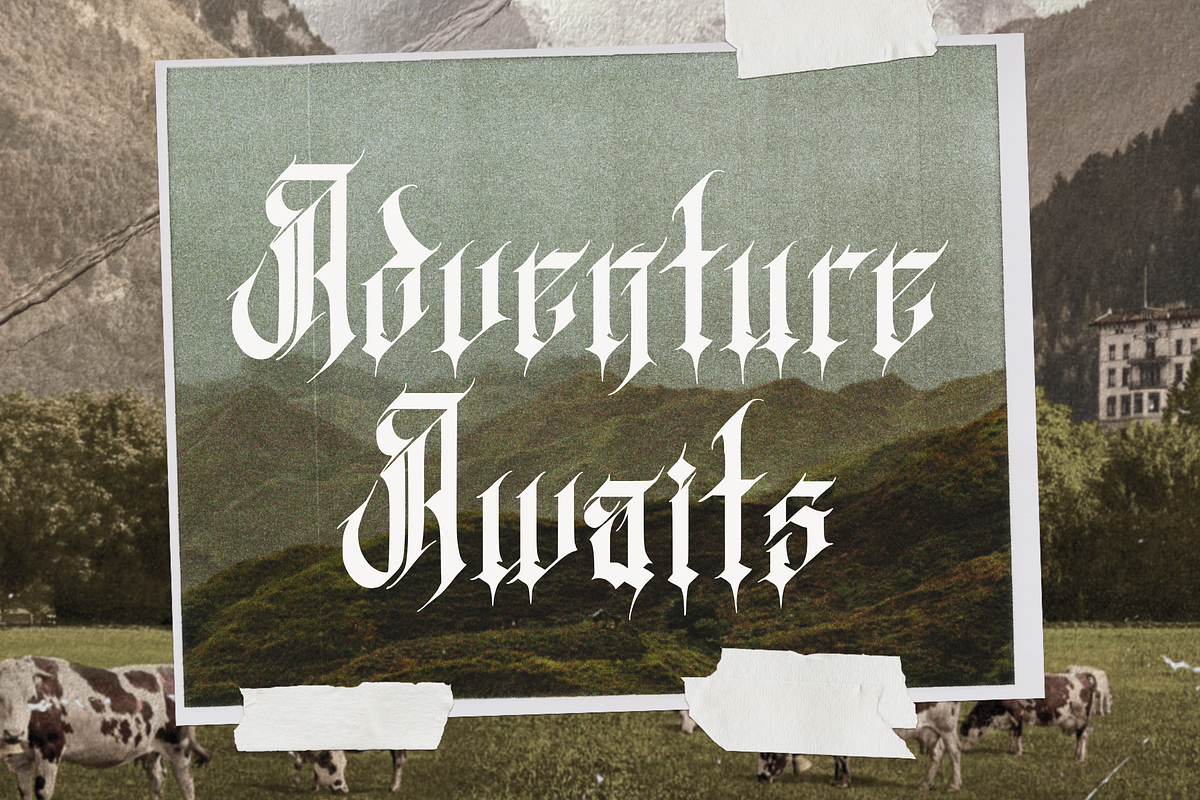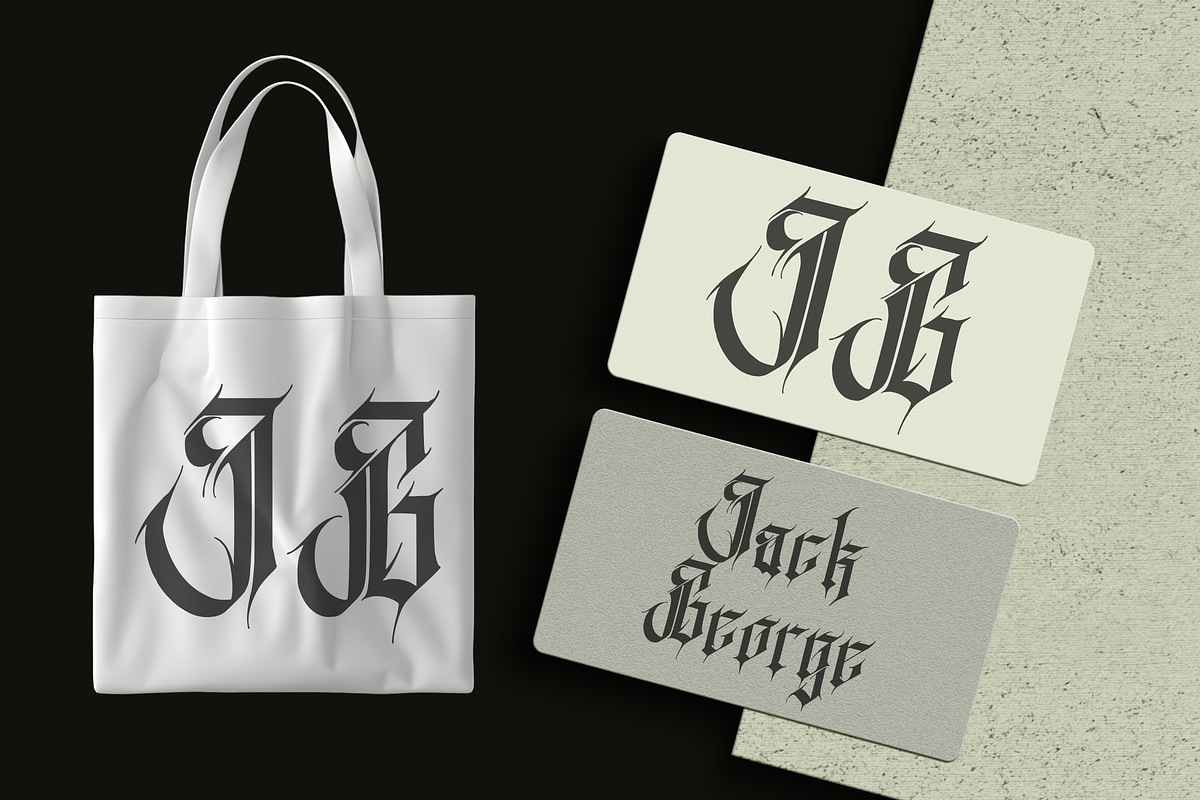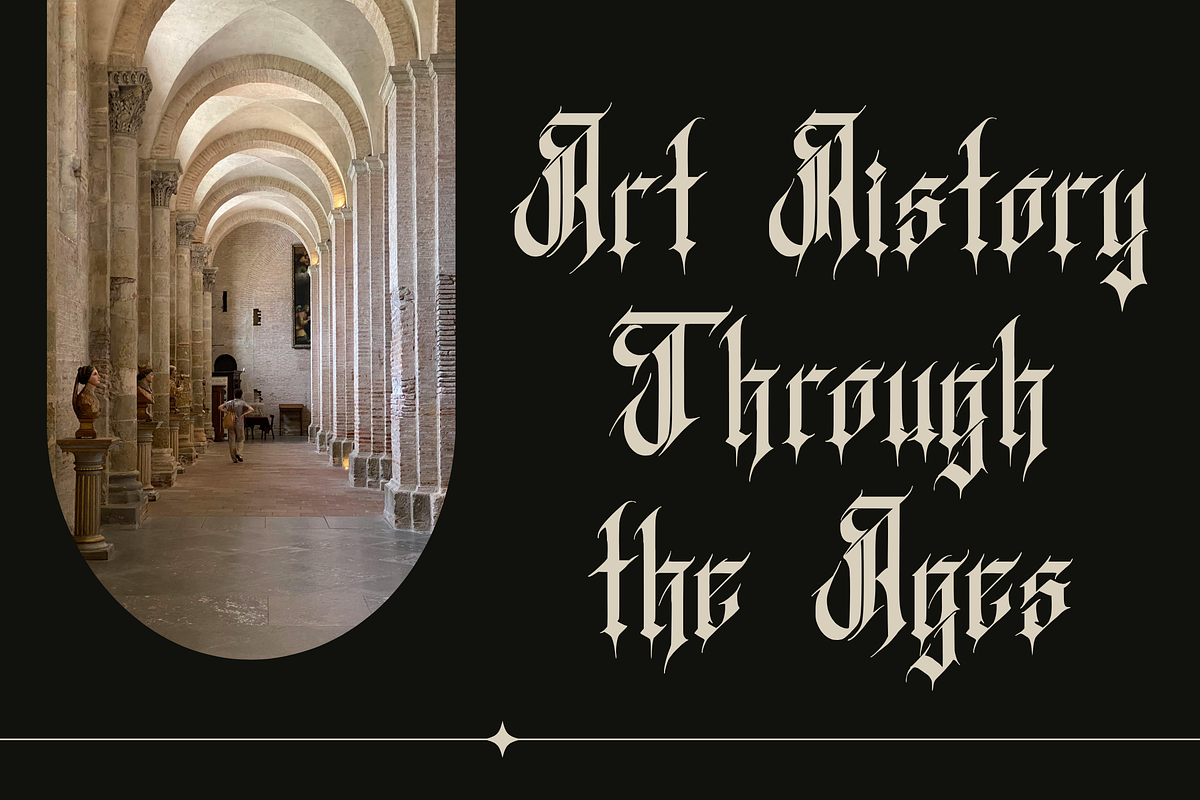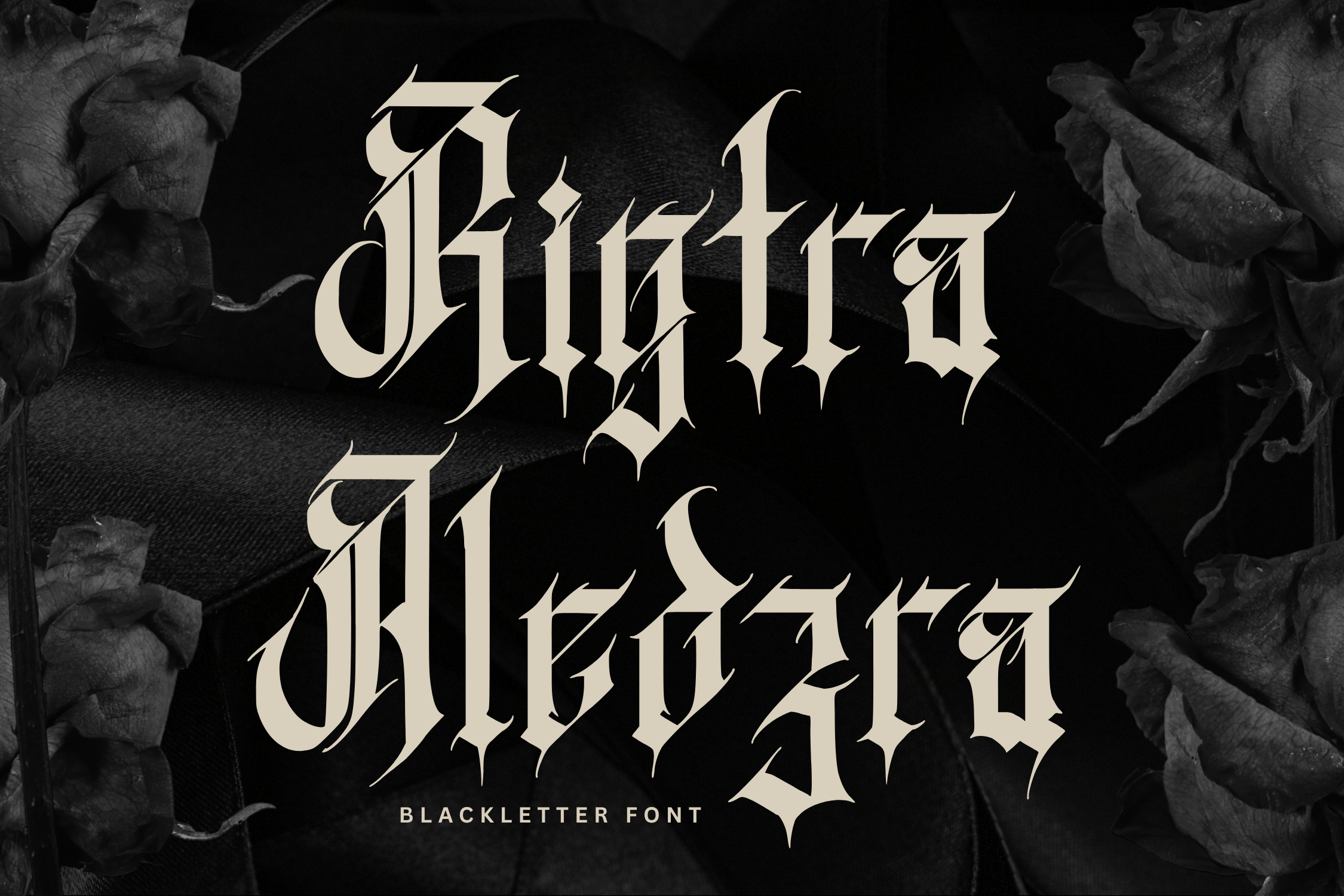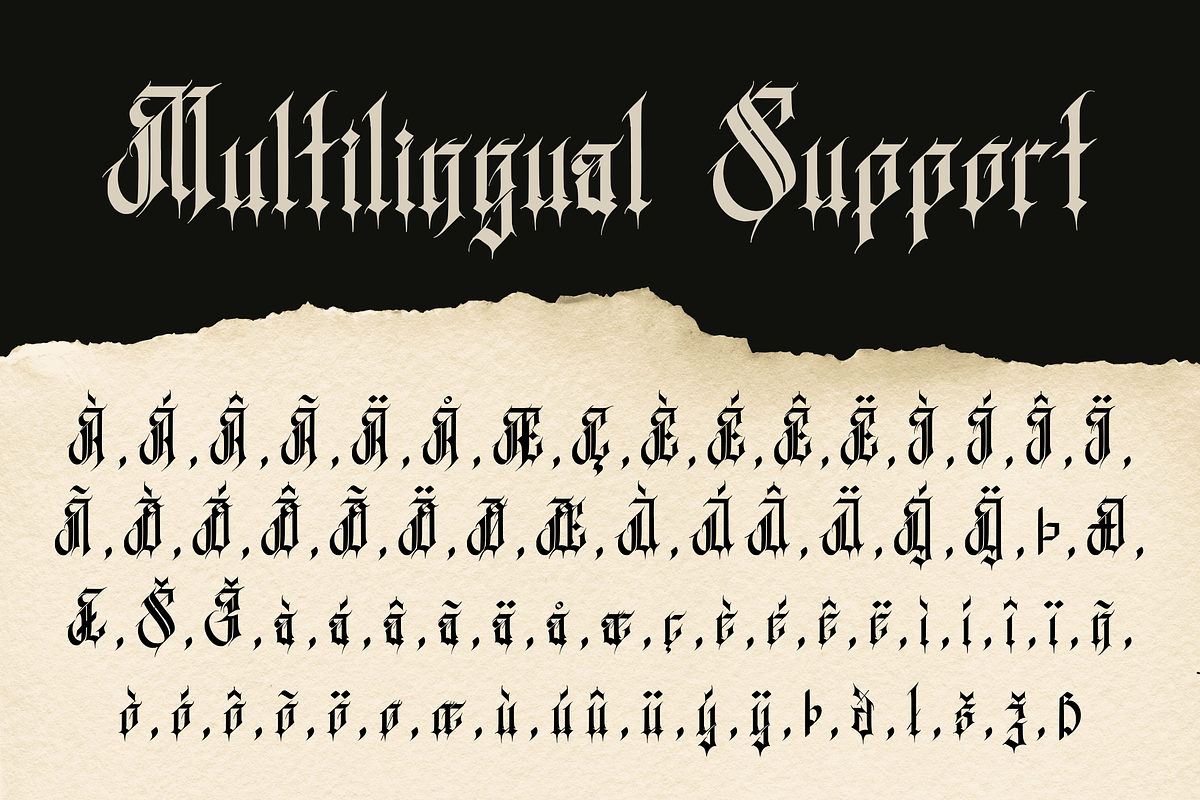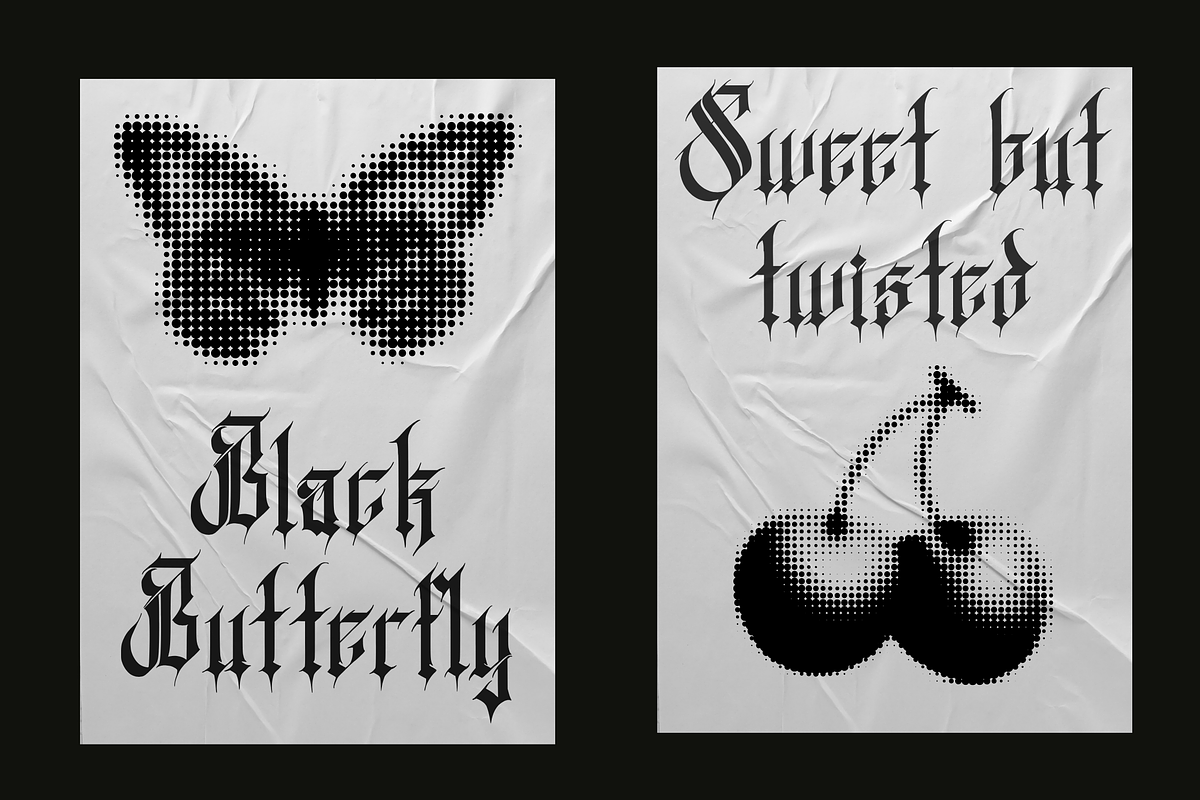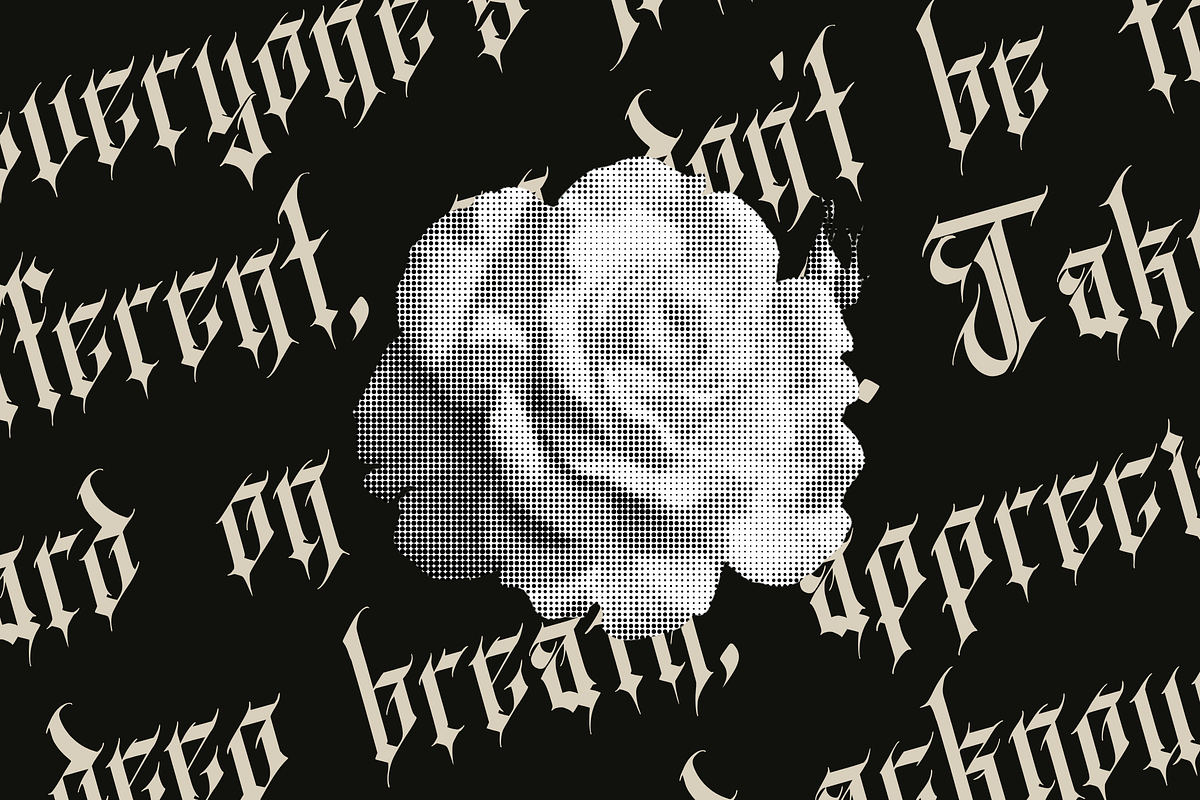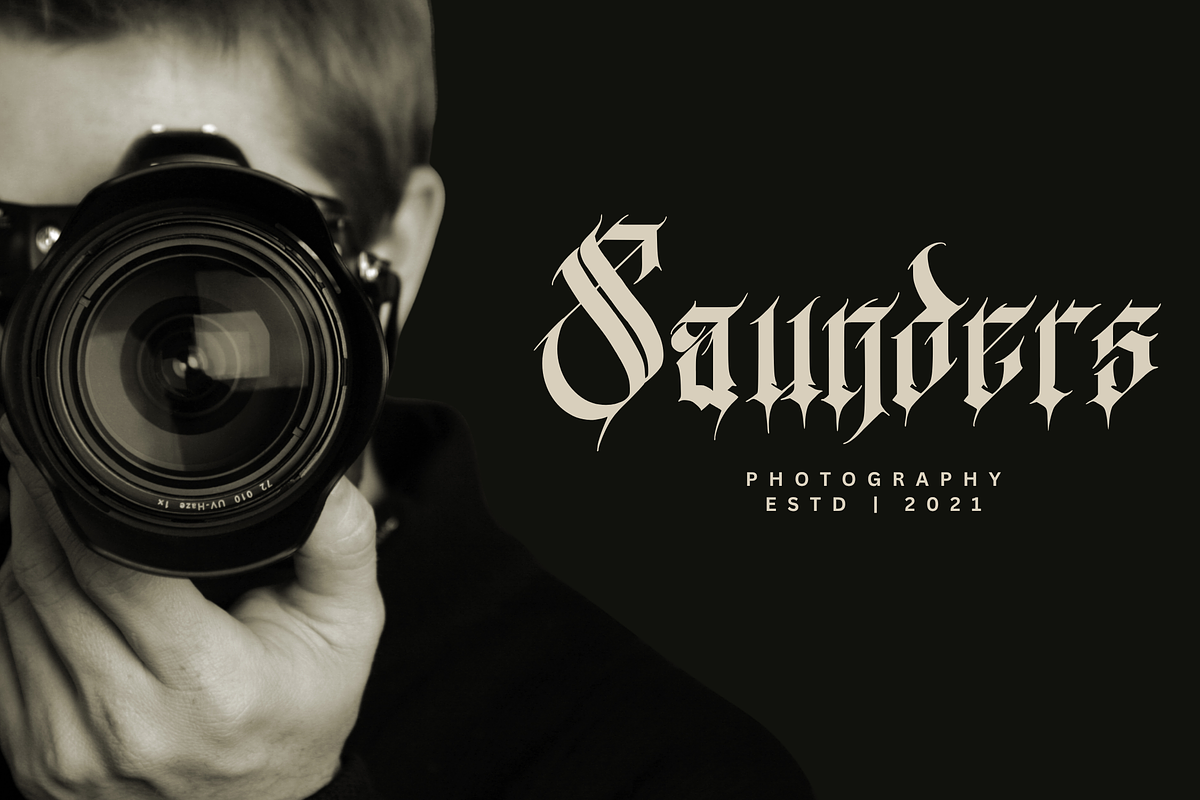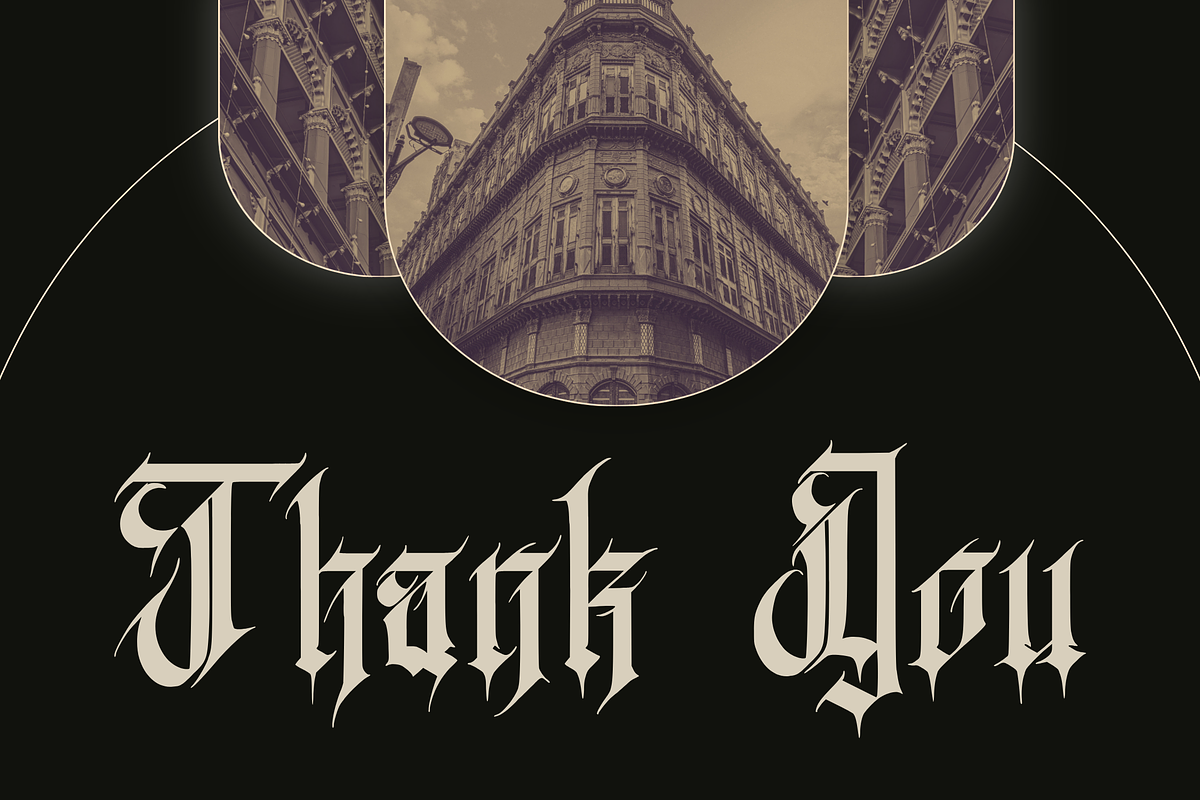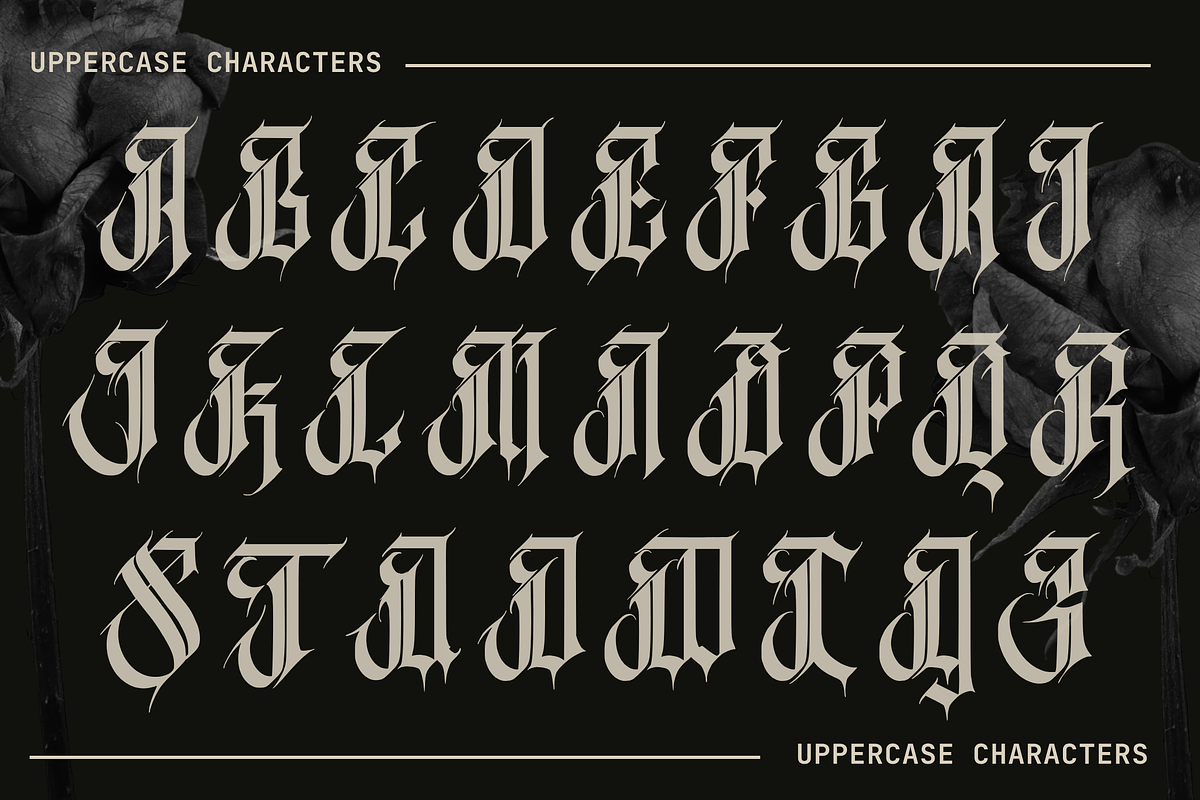
Rigtra Aledzra - Dark Gothic Font
Rigtra Aledzra is a striking and elegant blackletter font that perfectly blends classic gothic typography with a modern, edgy, and dark aesthetic. Featuring sharp angles, aggressive strokes, and intricate details, this font is designed to command attention and give your artwork a bold, mystical, and vintage vibe. Whether you are designing for a heavy metal band, a tattoo studio, or an exclusive brand, Rigtra Aledzra delivers an unapologetic and strong character to your typography.
Perfectly Suited For:
Band Logos & Album Covers (Rock, Metal, Alternative)
Beverage Packaging Barbershop & Pomade Branding Posters, Flyers, and Event Promos Gothic, Dark Academia, and Halloween themed designs Business Cards & Exclusive Branding
Uppercase & Lowercase: Carefully crafted to maintain consistency in style and readability.
Numerals & Punctuation: Complete standard character set.
Multilingual Support: Extensive character set supporting various languages with accented characters (À, Á, Â, Ã, Ä, Å, etc.) to reach a global audience.
Elevate your design with the dark elegance of Rigtra Aledzra!